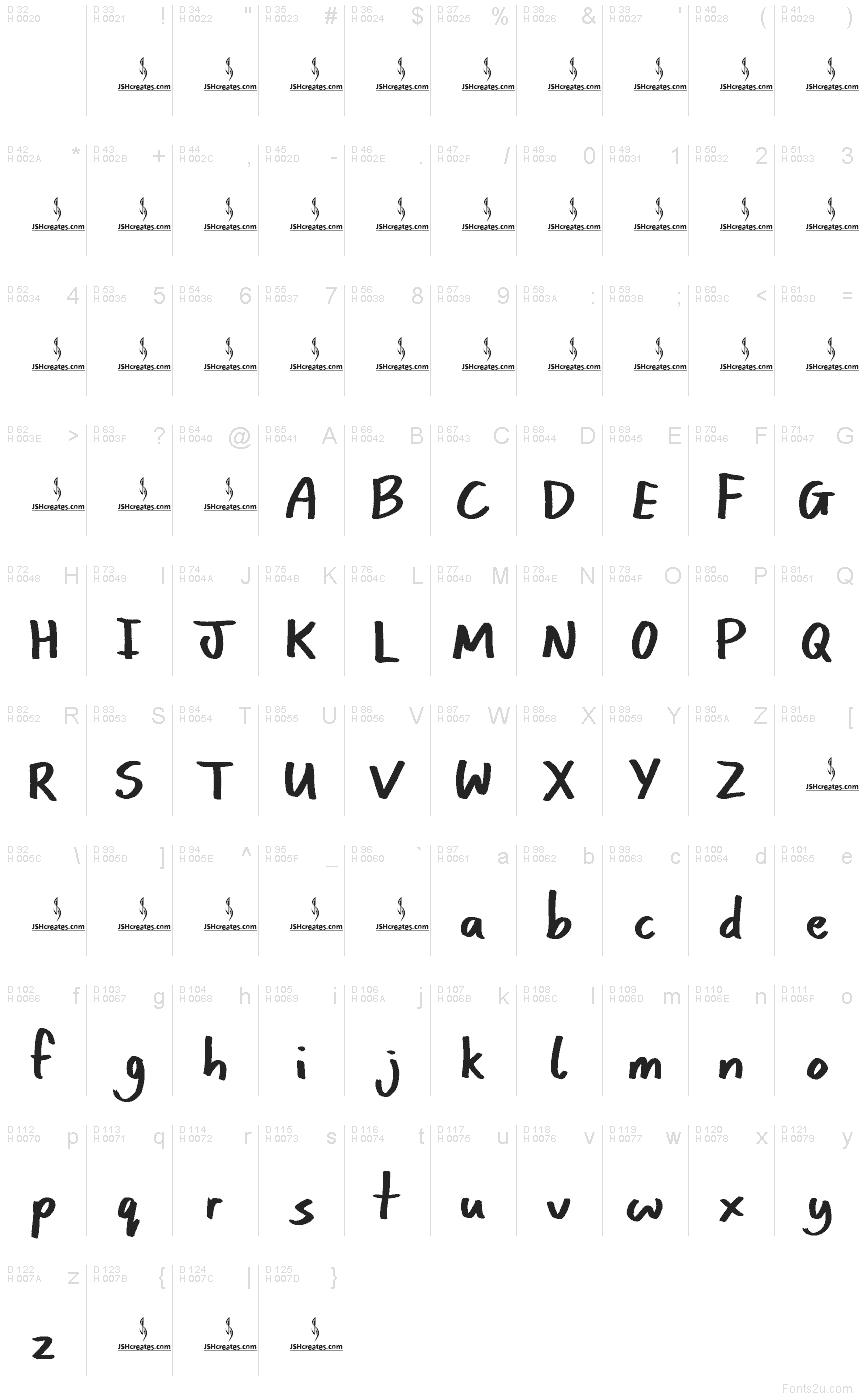
Lasting Ghouls
Lasting Ghouls font by JSH creates flaunts an expressive style, informal style, and handwritten appearance crafted at the designer’s fingertips. Its casual mood and modern appeal widen the horizon of this script font without limiting visuals to one era, character set, language, or theme. Lasting Ghouls is a cursive (fake calligraphy) yet naive display font.
A free handwritten font, Lasting Ghouls makes for natural titles and headings that will feel as spooky as ever! Use it for social media posts related to Halloween or simply anything hand-drawn like illustrations; postcards; invitation cards; posters; websites; UI designs; films titles or logos particularly on carton assets.